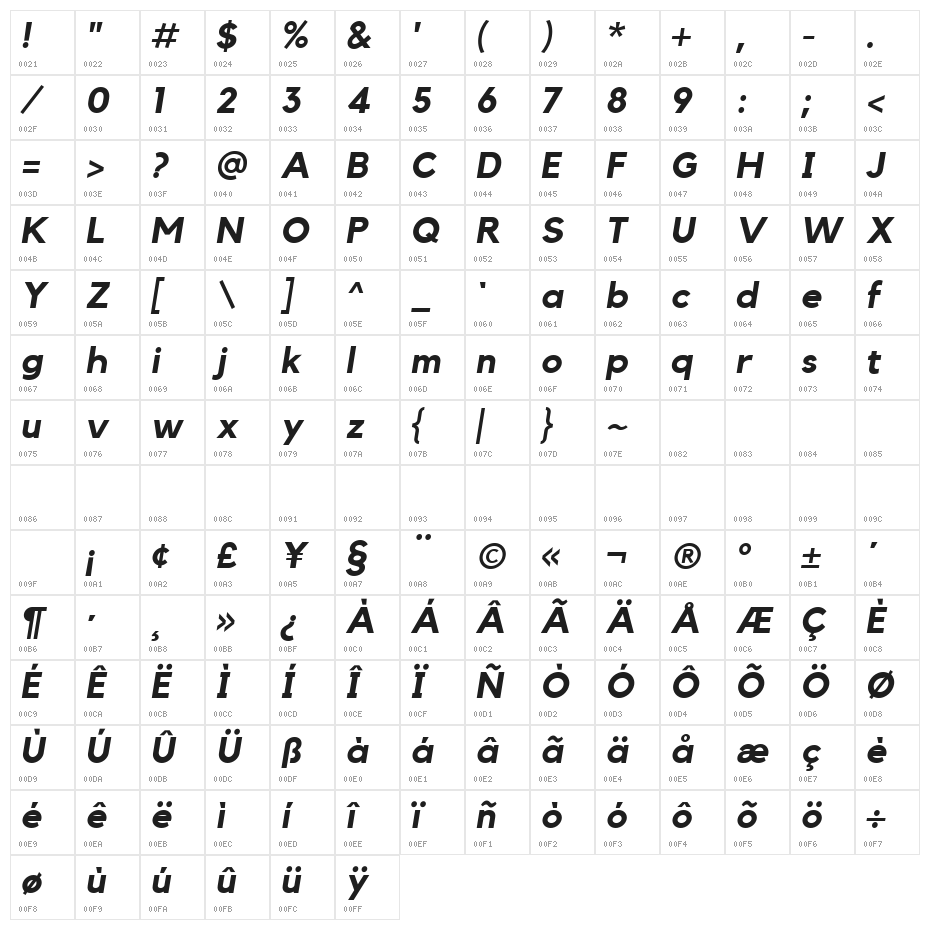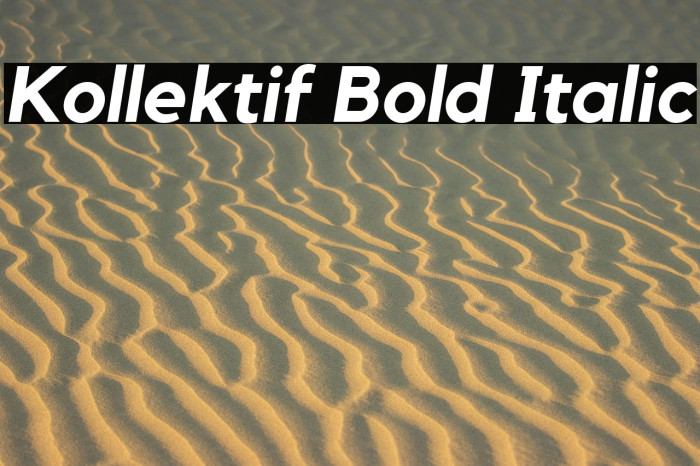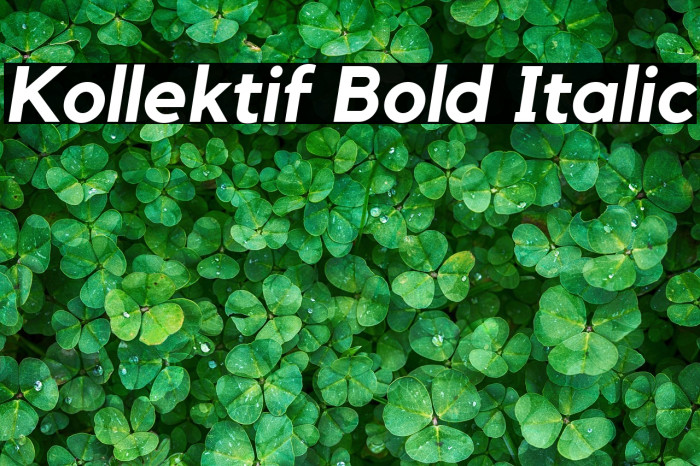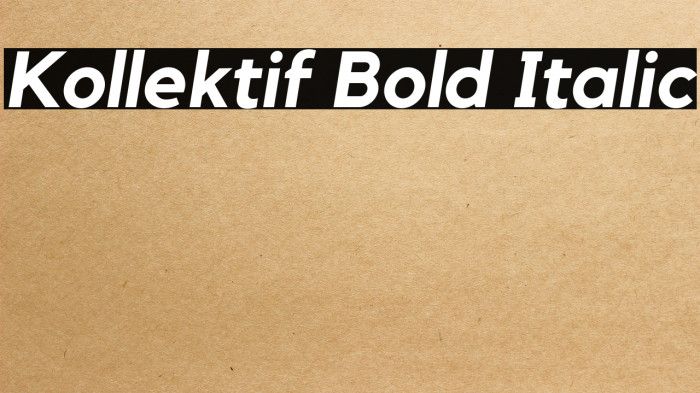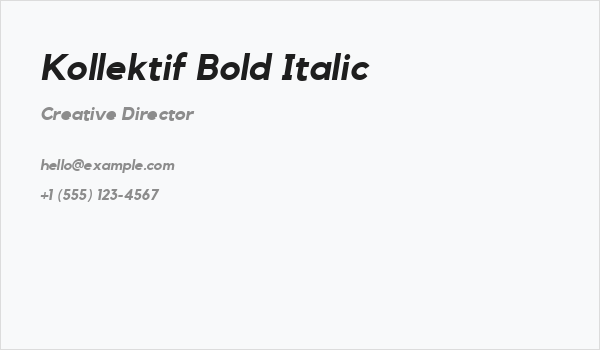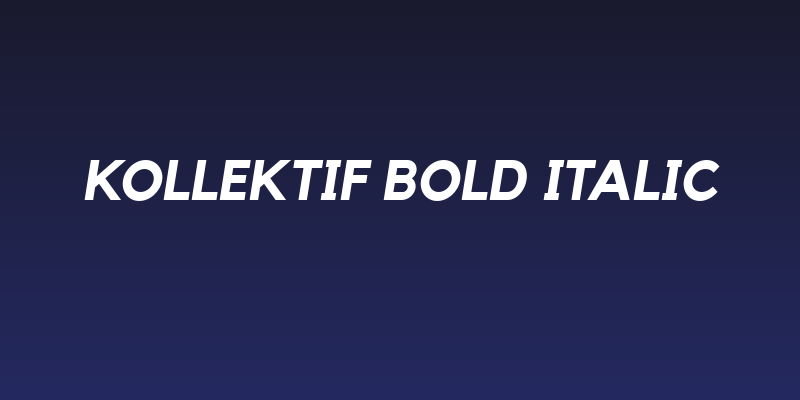
Kollektif Bold Italic Font
Kollektif Bold Italic Description
This font exhibits a bold and italicized style, combining a modern sans-serif aesthetic with a slight slant that adds dynamism and energy. The characters are well-defined with a consistent stroke weight, providing a clean and professional appearance. The uppercase and lowercase letters maintain a uniform height, contributing to a balanced and harmonious look. The numerals are clear and easily distinguishable, making them suitable for various applications. Special characters are included, enhancing the font's versatility. Overall, this font is ideal for projects that require a contemporary and assertive typeface.
| Proposed Projects | Ideal for branding, advertising, headlines, and digital media where a strong and modern presence is desired. |